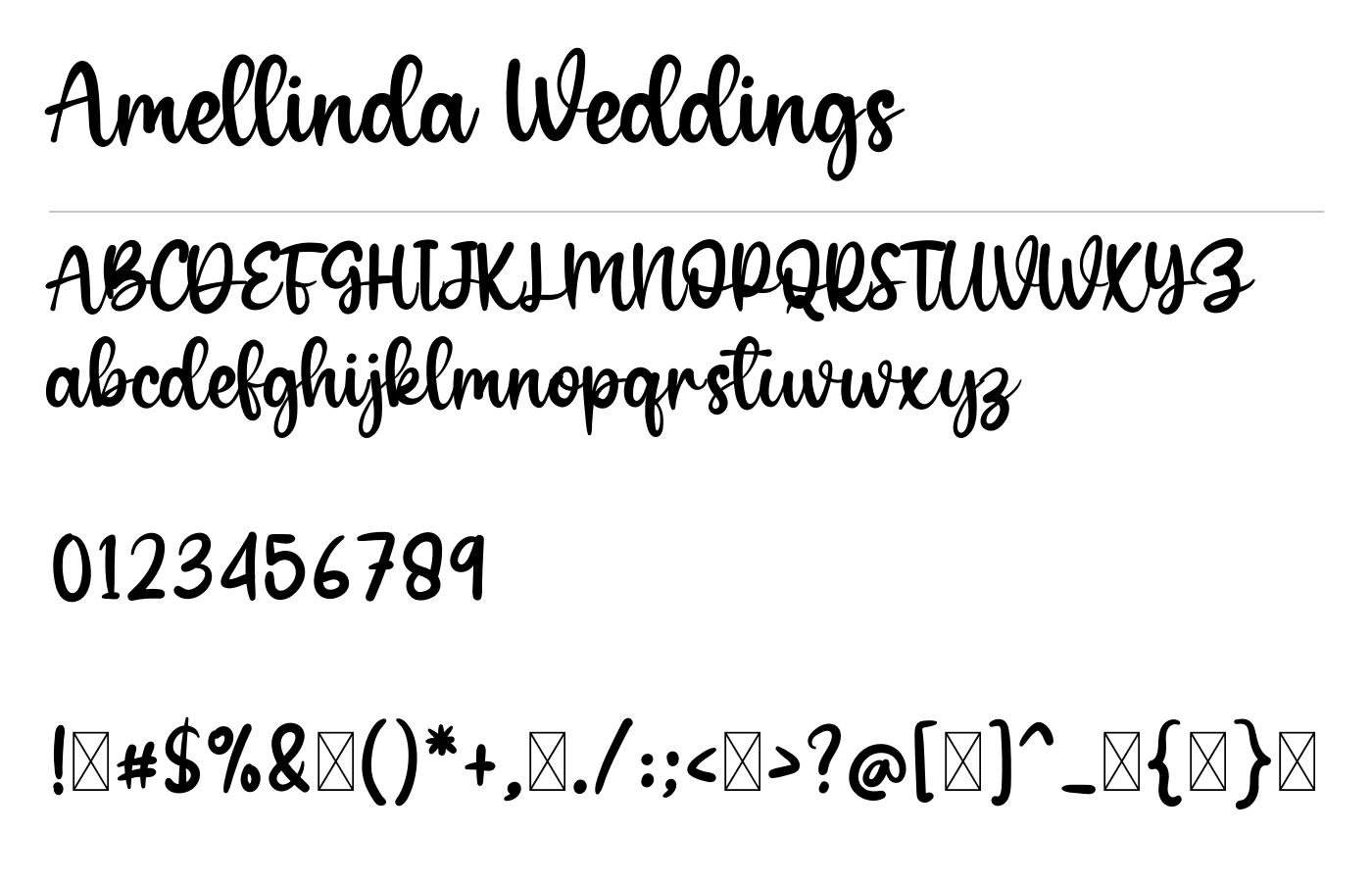
Amellinda Weddings is a charming and playful script font with a casual, handwritten feel. Its smooth, rounded strokes and moderate contrast make it perfect for warm, friendly designs like wedding invitations, greeting cards, and personal branding. This font’s informal yet elegant style brings a touch of personality and approachability to any creative project.
Amellinda Weddings Font
About Amellinda Weddings Font